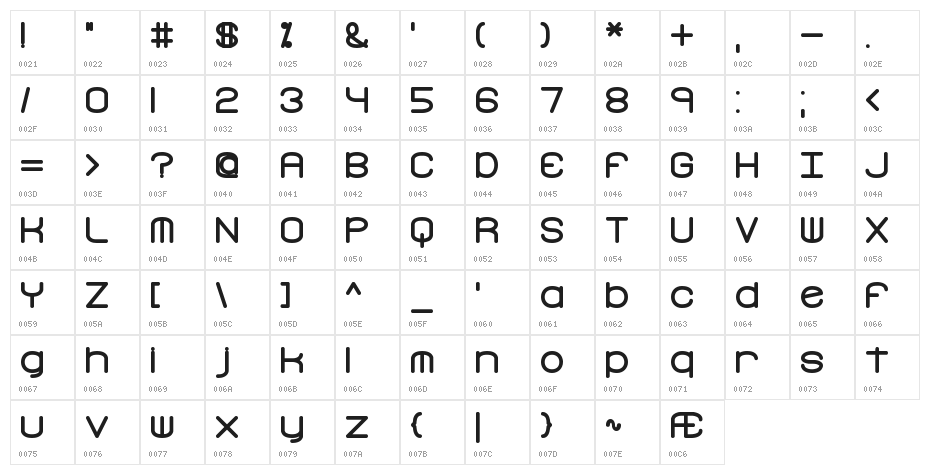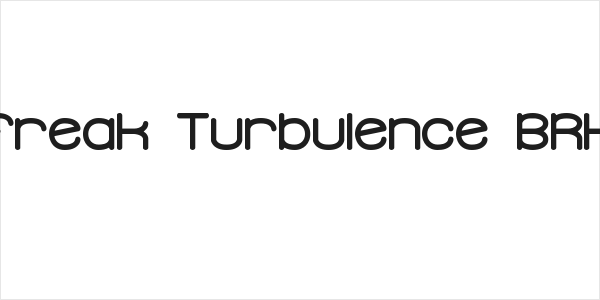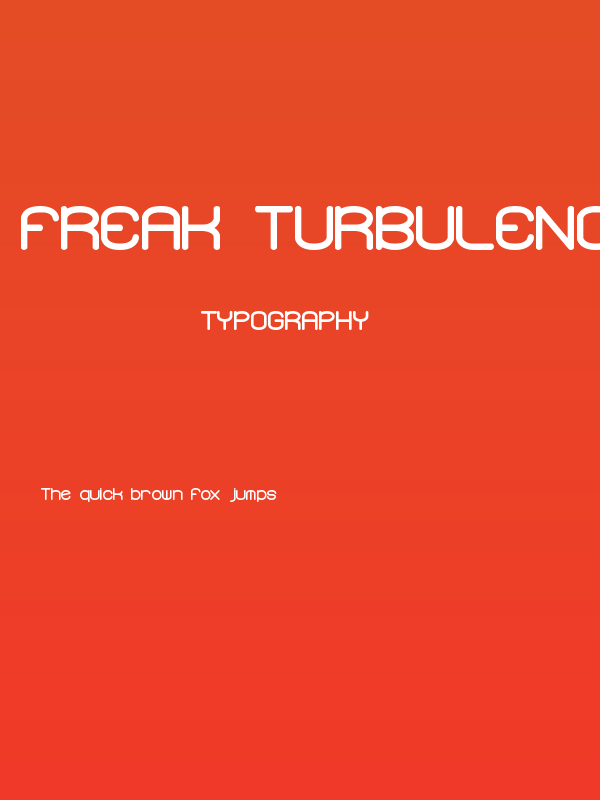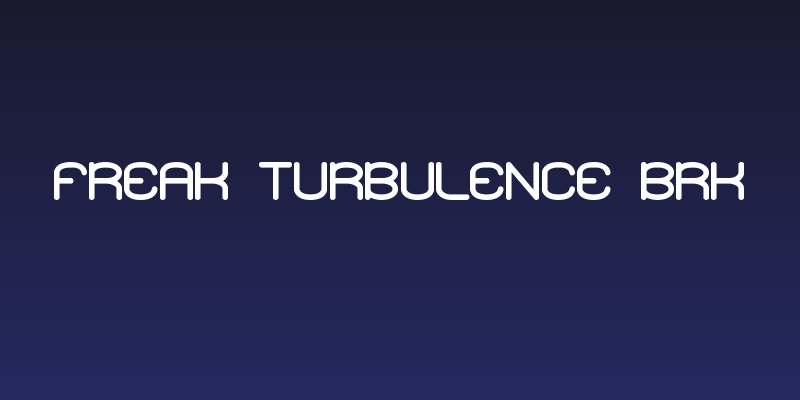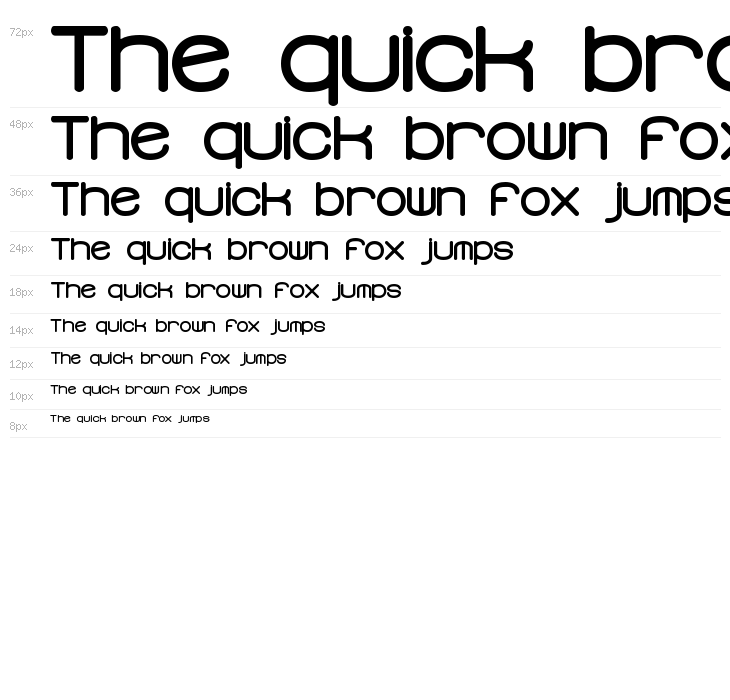
Freak Turbulence BRK Font
Freak Turbulence BRK Description
This font features a modern, rounded design with a unique, futuristic flair. The letters are bold and have a consistent stroke width, giving them a uniform appearance. The rounded edges and smooth curves create a friendly and approachable look, while the geometric structure adds a sense of precision and order. The font maintains a balanced proportion between height and width, making it versatile for various applications. The characters are evenly spaced, ensuring readability and clarity. This style is ideal for projects that require a contemporary and innovative touch.
| Use Case | Headlines, Logos, Digital Interfaces |
| Proposed Projects | Ideal for tech branding, modern advertising, product packaging, and digital interfaces. |